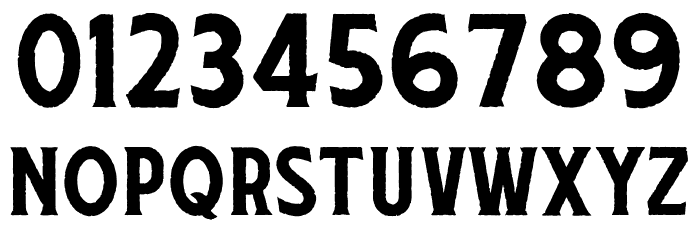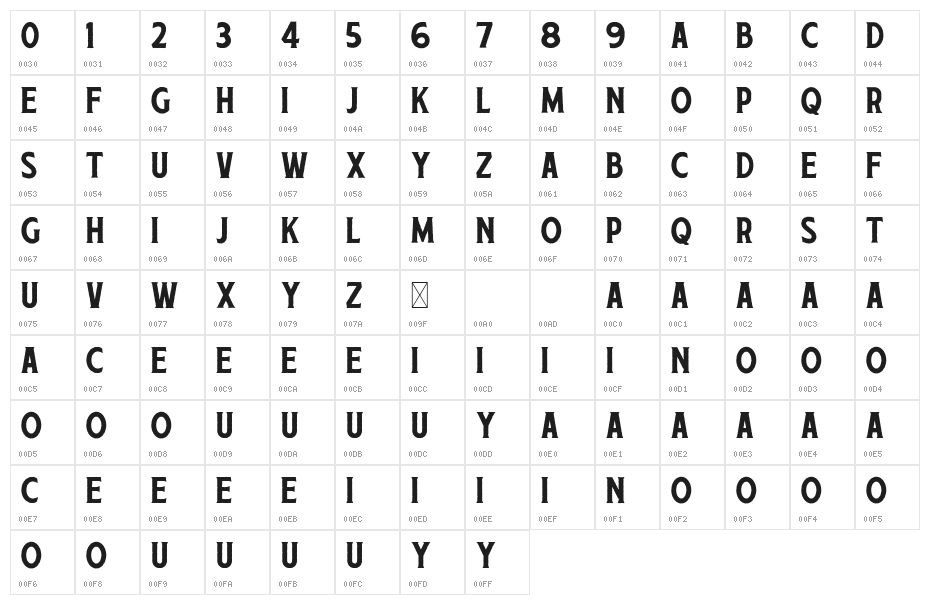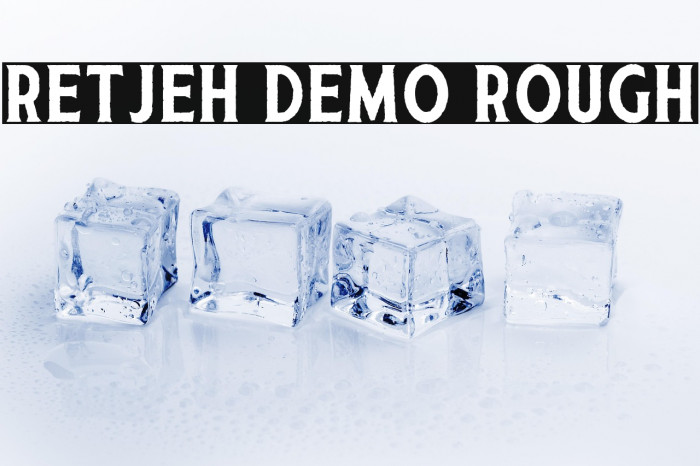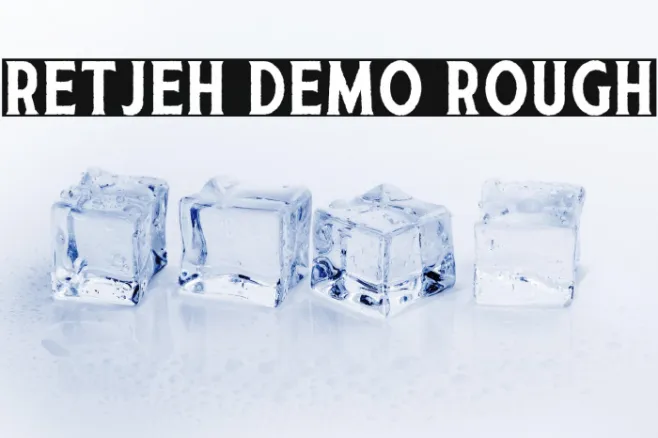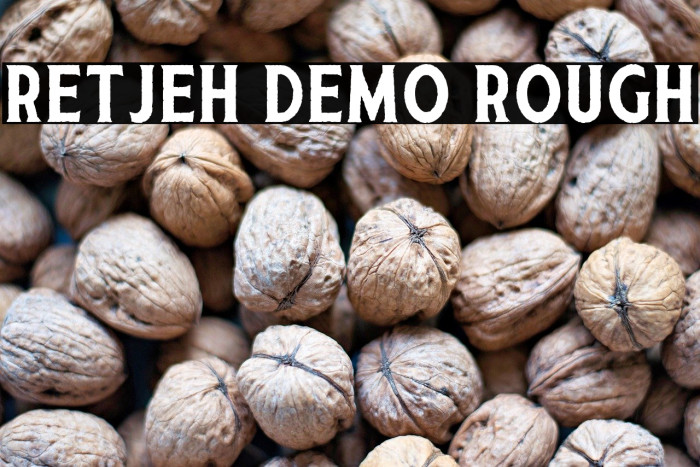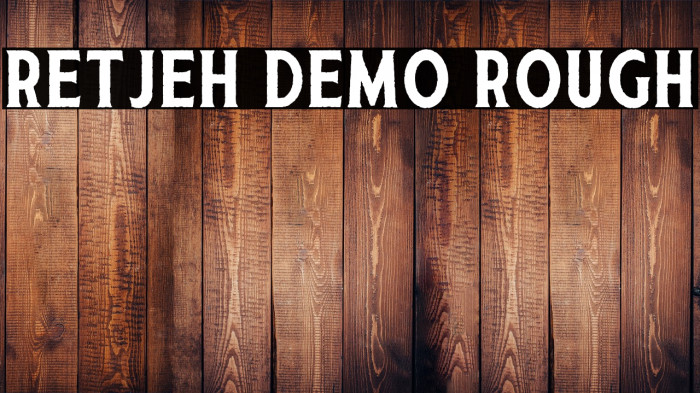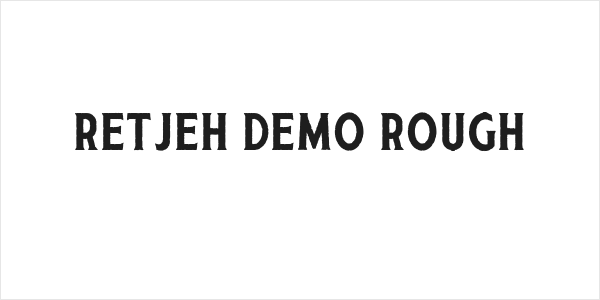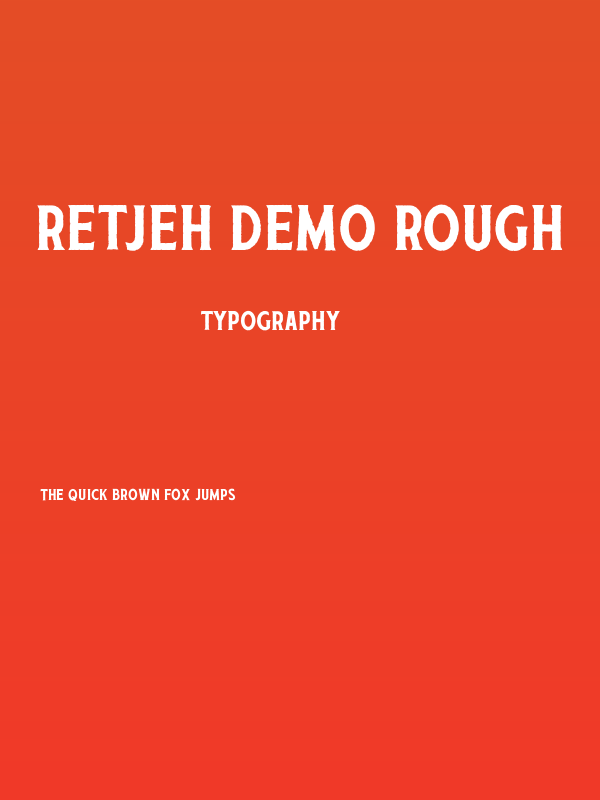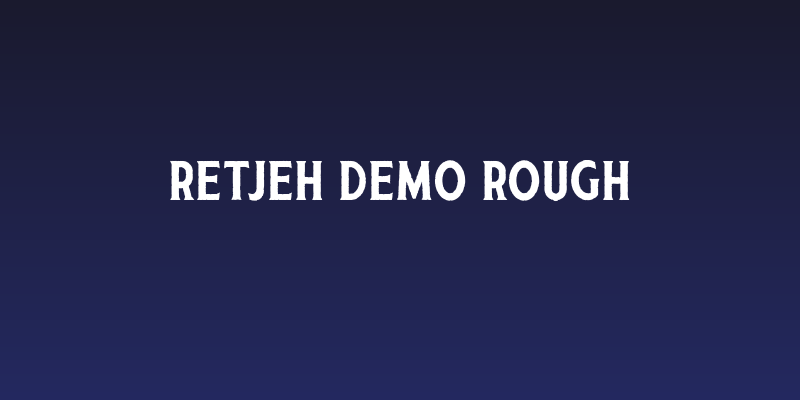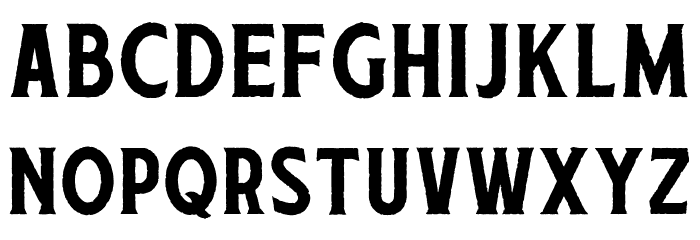
Retjeh Demo Rough Font
Retjeh Demo Rough Description
This font exhibits a bold and rough texture, giving it a handcrafted and vintage appearance. The uppercase letters are prominent and sturdy, with slightly irregular edges that add to its rustic charm. The numbers and special characters maintain this rugged style, ensuring consistency across all characters. The font's boldness makes it highly legible, even from a distance, while the rough texture adds a unique personality that stands out. Its design is reminiscent of old-school printing techniques, making it ideal for projects that require a touch of nostalgia or a handcrafted feel.
| Proposed Projects | Ideal for branding, posters, packaging, and any design project that seeks a vintage or handcrafted aesthetic. |